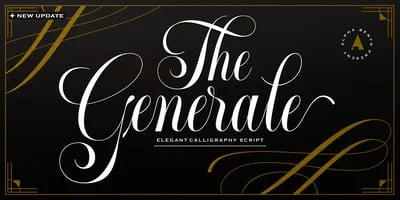
Generale Script
Generale Script Font
Generale Script Font is an exquisite choice for projects that demand elegance, flowing sophistication, and a distinctly classic handwritten aesthetic. It's perfectly suited for wedding invitations, luxury branding, high-end product packaging, personalized stationery, and any application where you want to evoke a sense of refined artistry, timeless grace, and bespoke charm. Imagine it adorning a beautifully designed celebratory announcement, adding an air of subtle luxury to a gourmet food label, or giving a distinctive, handcrafted feel to a boutique's logo. Its smooth, connected strokes and elegant flourishes ensure your message is conveyed with both profound beauty and undeniable sophistication.
What makes Generale Script Font so exciting is its remarkable ability to blend the natural flow of traditional calligraphy with a modern, legible execution. Each character feels meticulously crafted, mimicking the artistry of skilled penmanship while remaining clear and versatile for various design contexts. This font isn't just about conveying text; it’s about infusing your projects with a sense of personal touch, elevated style, and bespoke appeal. It transforms words into visual poetry, making every piece feel unique, personal, and utterly charming.
The Generale Script Font family typically offers variations that enhance its artistic versatility, often including a standard "Regular" weight that showcases its beautiful script, and potentially stylistic alternates, swashes, or ligatures for extensive customization. These features allow for creating truly unique typographic compositions, ensuring that the Generale Script Font can be the cornerstone of a truly unique and powerfully thematic visual identity, helping your designs stand out with an undeniable sense of character and profound elegance.